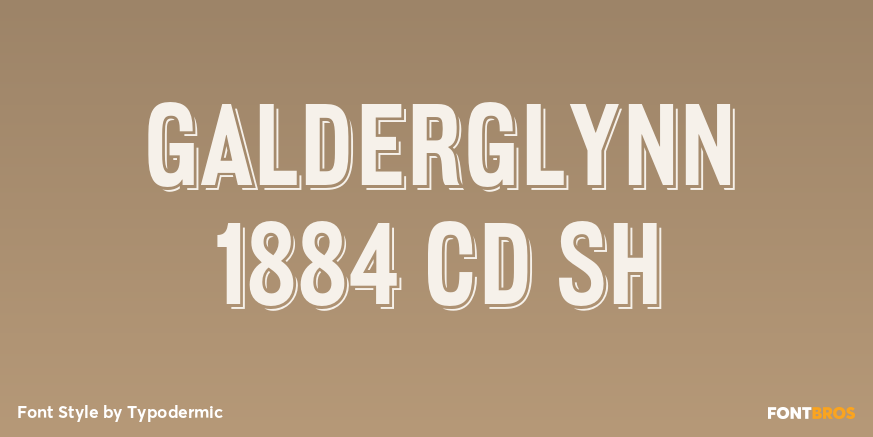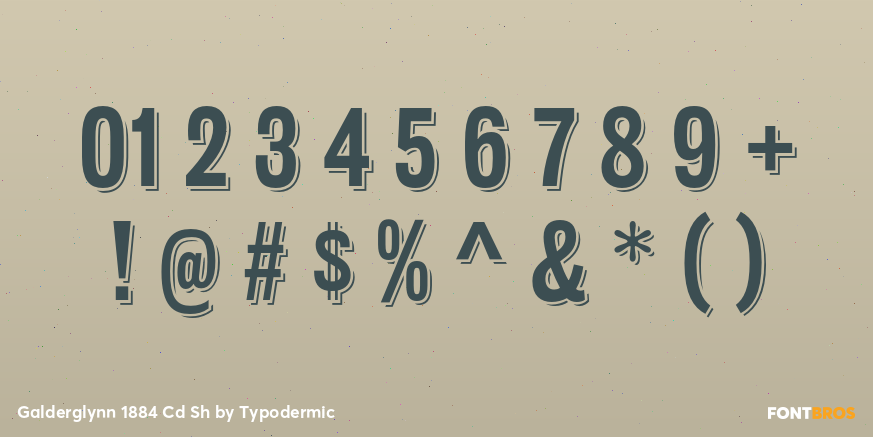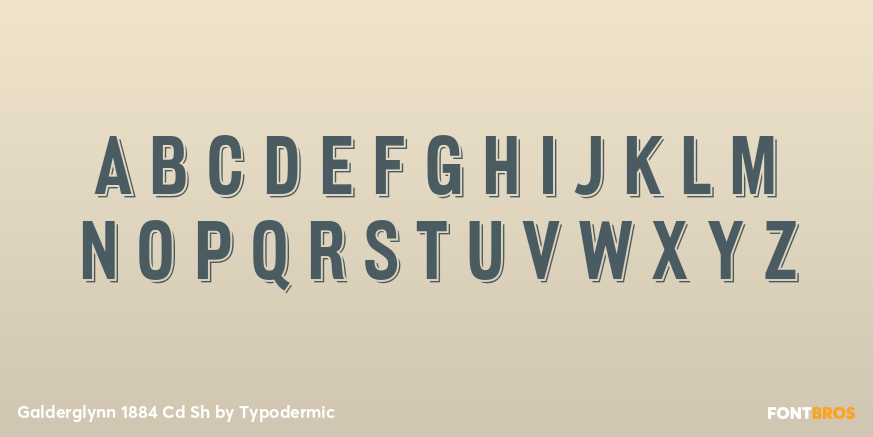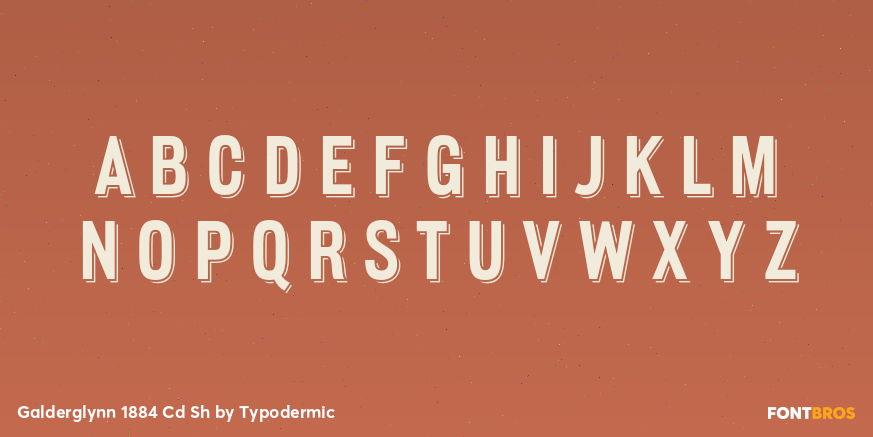
Galderglynn 1884 Shadowcaps Condensed turns the family’s narrow nineteenth-century grotesque into an all-capital shaded display style. Uppercase and lowercase input both produce capital forms. Each letter combines a solid face, a fine inset line, and a crisp shadow offset down and to the right, so the dimensional treatment is built into the font. Its compressed proportions keep that decoration practical in restricted widths.
Use Shadowcaps Condensed for bottle-neck lettering, tall cartons, batch panels, book spines, railway placards, historic pub signs, and period advertising props that need a compact, emphatic label. Its capital-only voice suits names, dates, numbers, and brief statements rather than running text. Set supporting information in one of Galderglynn 1884’s regular or condensed styles so the shadowed headline remains the focal point.